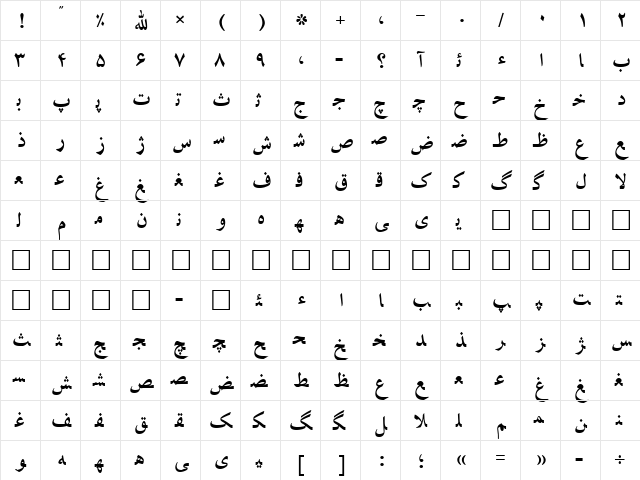
Irnafont_6 Normal
Design Context for Irnafont_6 Typeface
Irnafont_6 is a composed and adaptable typeface that performs quietly and consistently across a wide range of design contexts.